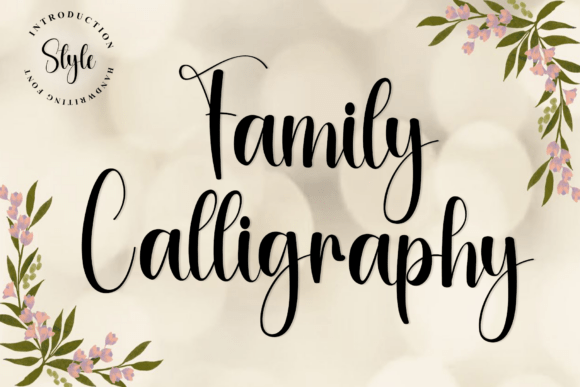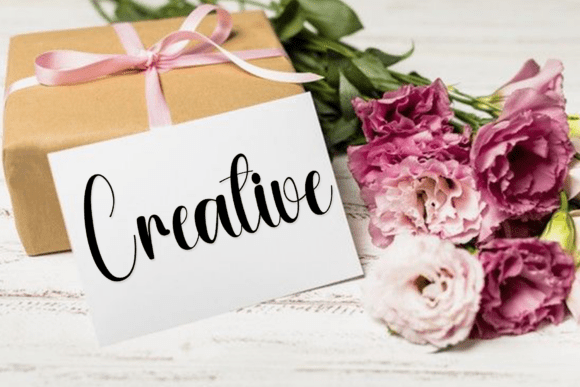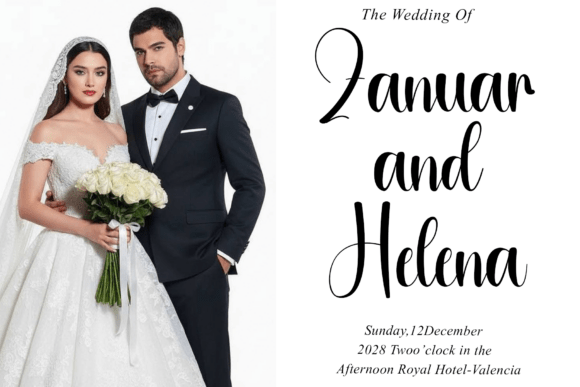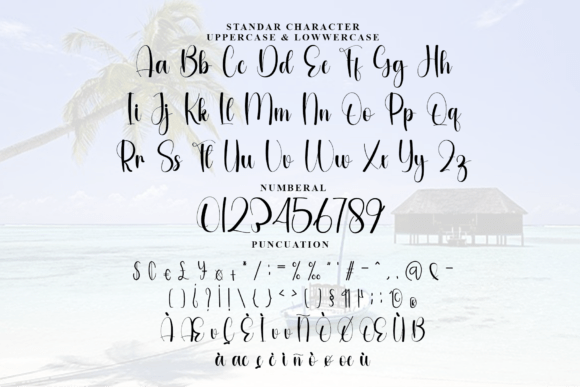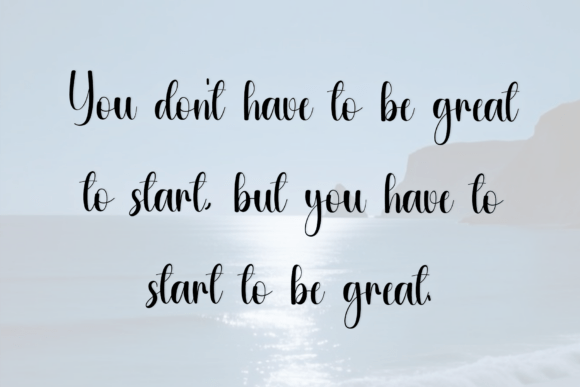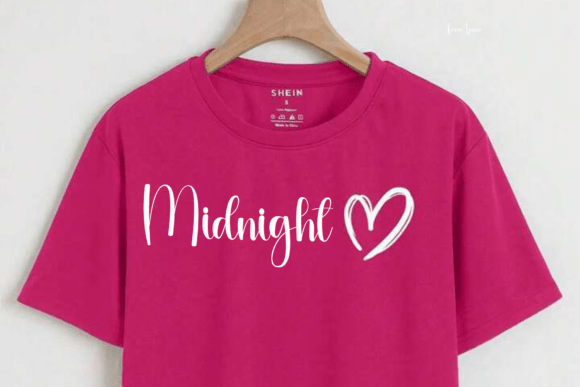
Family Calligraphy Script Fonts
Capture the poetic cadence of the harvest season with Family Calligraphy, a script that transforms digital layouts into hand-inked masterpieces. Defined by its dramatic interplay between substantial, grounded strokes and ethereal hairline connections, this typeface offers a soaring silhouette that dances across the page. Its elongated architecture and expressive flourishes evoke a sense of organic luxury and refined movement.
An essential tool for designers curating premium brand identities, Family Calligraphy breathes life into high-end product packaging, artisanal event stationery, and compelling editorial layouts where warmth meets prestige.